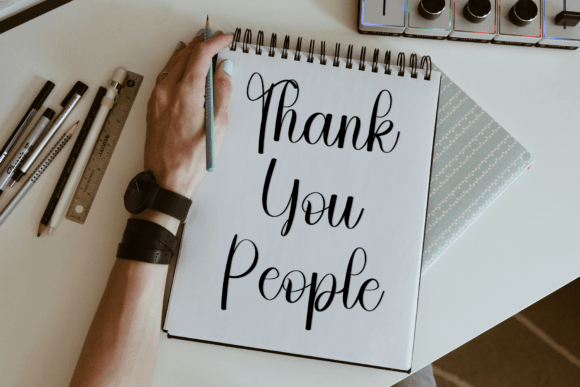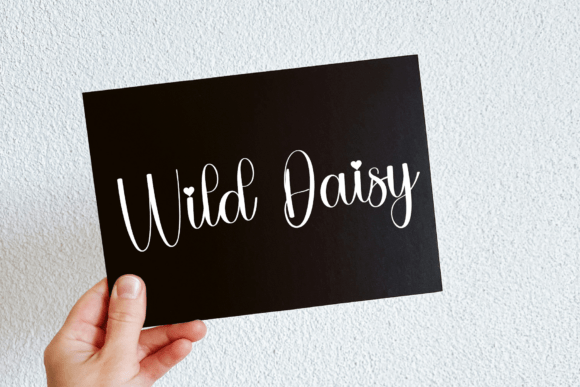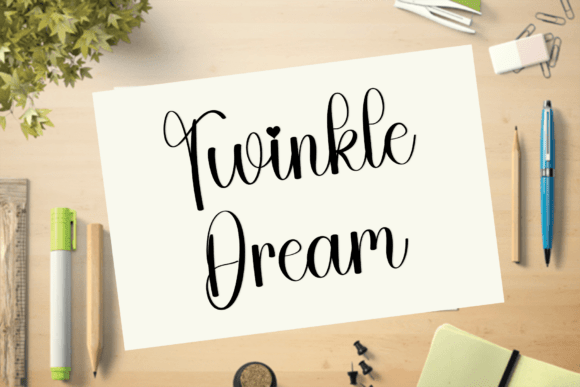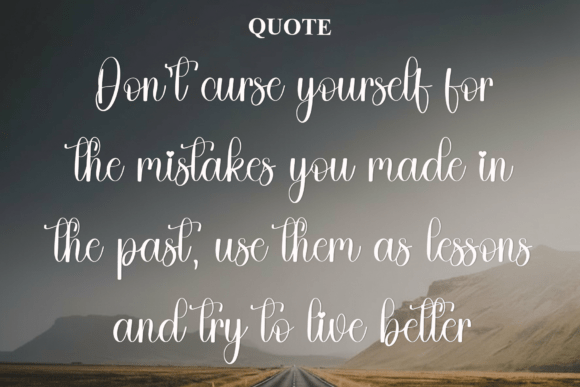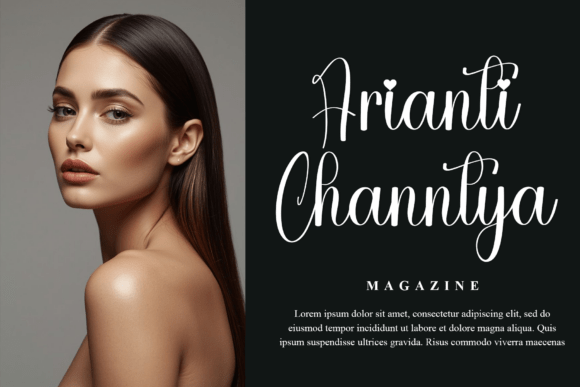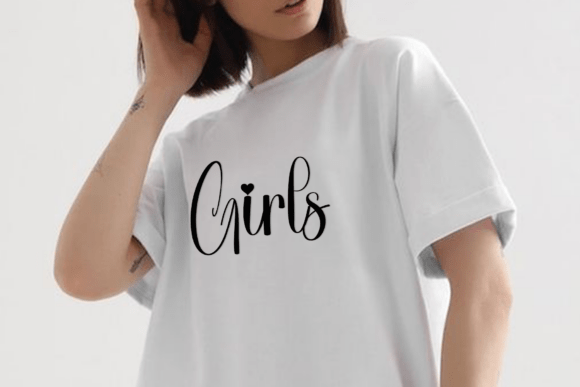
Introduction to Siblings Bonding Font
Do you remember the excitement of creating handmade cards and posters with your siblings as kids? The laughter, the imagination, and the joy of bringing a personal touch to every project? That same feeling of warmth and creativity can now be captured with the Siblings Bonding Font, a free download that’s about to become your new design resource.
As designers, we’re always on the lookout for high-quality fonts that can elevate our creative projects and add a personal touch. The Siblings Bonding Font delivers with its playful, hand-drawn aesthetic and round, approachable strokes. Whether you’re working on a social media graphic, invitation, or personal project, this font is sure to bring a smile to your face and a unique touch to your design.
Siblings Bonding Font
• High-quality design resource perfect for creative projects that focus on family and relationships.
• Unique characteristics include hand-drawn illustrations and playful typography, making it perfect for creating a warm and inviting atmosphere in designs.
Honest Review: Siblings Bonding Font
I recently stumbled upon the Siblings Bonding Font while searching for a design resource to enhance my creative project. The font is free to download, which is always a great starting point.
The Siblings Bonding Font offers a transparent background, which makes it versatile for use in various design applications. I was impressed by the high quality of the font, with smooth lines and a playful feel that’s perfect for projects centered around family and relationships.
• ✨ High-quality design with smooth lines
• ✨ Versatile for use in various design applications
• ⚠️ Limited character set (not ideal for long texts)
• ⚠️ Not suitable for professional or formal projects
Overall, I was pleased with the Siblings Bonding Font’s performance in my creative project. While it may not be suitable for every project, it’s a great resource to have in your design toolkit. If you’re looking for a fun and playful font, this might be the perfect choice.
Introduction to Siblings Bonding Font
The Siblings Bonding Font is a unique design resource that can add a personal touch to your creative project. This free download features a transparent background, making it easy to integrate into your design.
Tips for Getting the Most Out of Siblings Bonding Font
For the best results, use the Siblings Bonding Font in conjunction with other design elements, such as graphics and images. You can also experiment with different font sizes and styles to create a unique look.
The Siblings Bonding Font is perfect for creative projects, such as birthday invitations, family photo albums, or social media posts. It’s also a great resource for designers and artists looking for a unique and high-quality font style.
What makes the Siblings Bonding Font a high-quality design resource?
The Siblings Bonding Font is a high-quality design resource due to its crisp, clear characters and smooth lines. The font is designed to be versatile, making it suitable for a wide range of creative projects, from children’s books to advertisements. Its transparent background feature also allows for more flexibility in design, making it a valuable addition to any design toolkit.